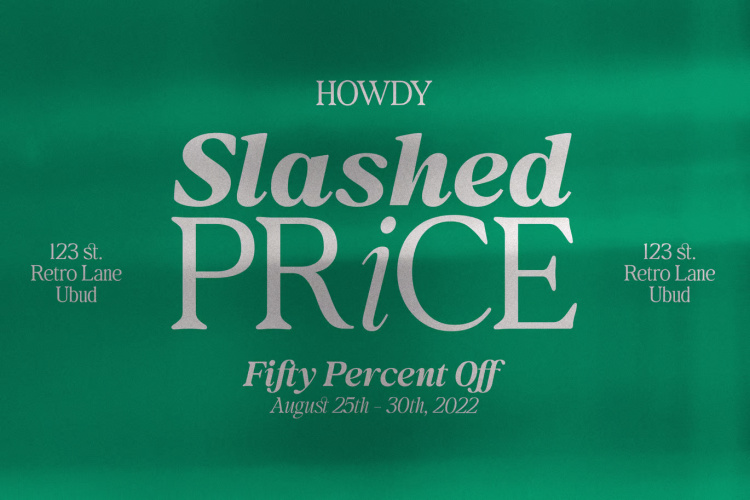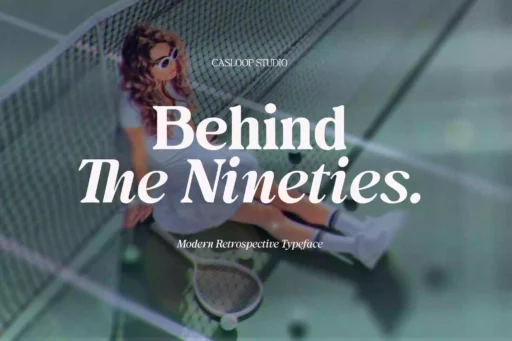
Behind The Nineties Font
Presenting Behind The Nineties, the nostalgic font with a relaxed attitude to life. Less sharp corners are integrated in rounded and blunt serifs, which provide it the flair of the modern typefaces. It comes available in six weights: regular through black, with both standard and italic styles that slope at 12 degrees, which offers sufficient potential for combination.
Enhanced in the technicality of typographic with super fine multi Latin character set compatibility, the typeface Behind The Nineties comes with ligatures to support its utility. It is likewise very useful for editorial projects up to date.
Incomparable, this script formally conveys the feel of 1970s 1980s and 1990s, with subtly and elegance. It is a cool , stylish with some boho and vintage look, it fits very well in websites, packaging, logos, and posters, so the projects will look very unique.
Feel invited to enjoy the advanced performances Behind The Nineties, where all are designed to provide the narration of chill and serious sexual experiences. From luxury logo designs to casual magazine themes, this font family includes genuine obliques and fun styles perfect to create cool looks. A classic and timeless option for stylish blog and lyrical magazine designs.
It enhances creativity through expressive headers. It merges style with use by featuring weights from regular to bold. The tall and curved condensed styles impart a softness that uplifts your creative work, and serifs add grace.
Secure Behind The Nineties now for a font style that combines vintage allure with a modern interpretation. Choose this font for unique and stylish layouts in your favourite niche projects—nostalgic publications and fancy blogs. Welcome the 70s, 80s, and 90s characters and use Behind The Nineties to uplift your works with classic style.
Where Behind The Nineties Font works best
Behind The Nineties Font gives long-form text a classic, trustworthy rhythm — ideal for magazine spreads, annual reports and book interiors.
Pair Behind The Nineties Font with generous letter-spacing for wordmarks in fashion, hospitality, wine and jewellery branding.
Use Behind The Nineties Font for slide titles in Keynote, PowerPoint or Google Slides to add authority without looking dated.